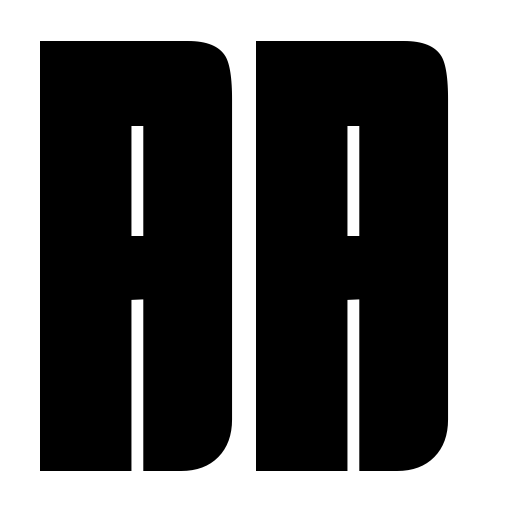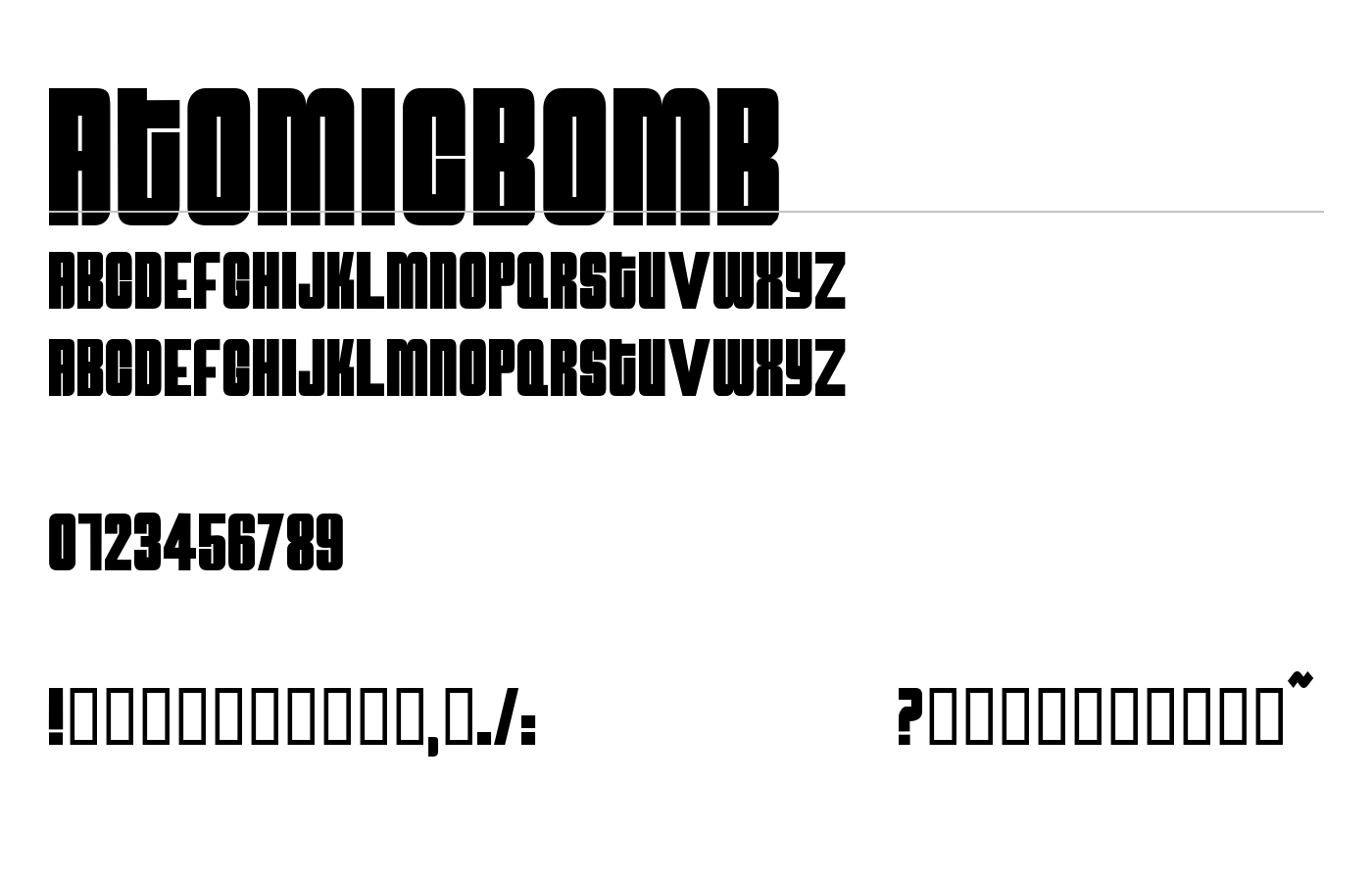
AtomicBomb is a bold, condensed sans serif font with a strong, geometric presence and uniform, thick strokes that command attention. Its tall, narrow letterforms and high x-height give it a modern and impactful feel, making it perfect for striking headlines, logos, and designs that need a powerful, industrial edge. This font works best in branding and display use where a dramatic and authoritative style is desired.
AtomicBomb Font
About AtomicBomb Font